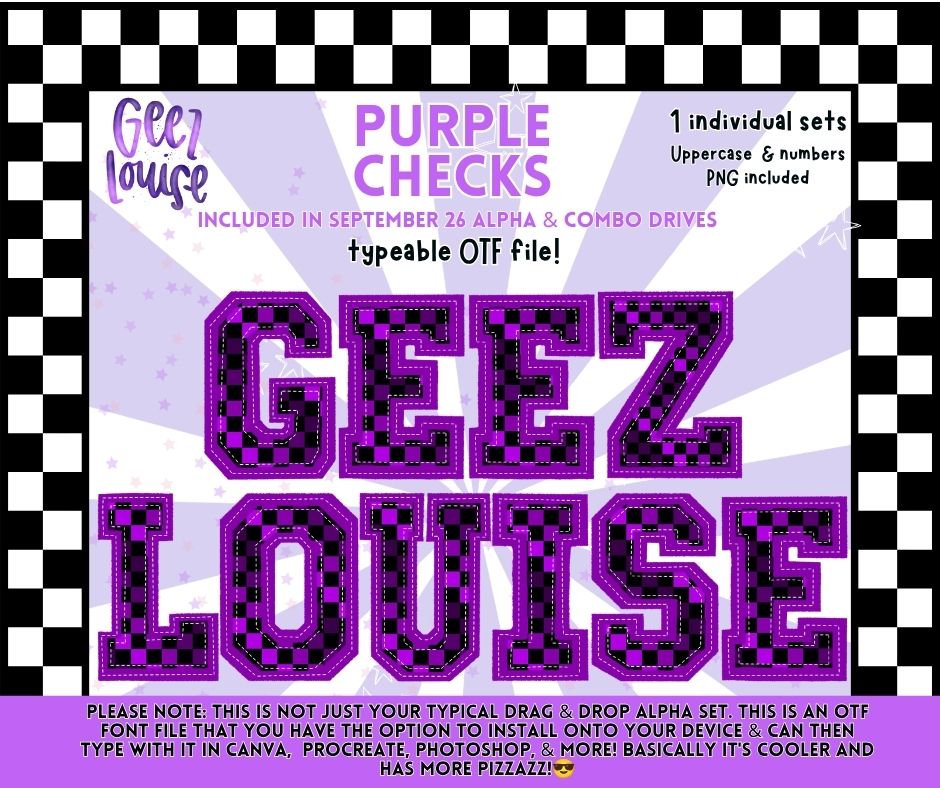
Purple Checks OTF Alpha | Purple & Black Checkered Varsity Font | Uppercase Letters & Numbers
Purple + black + checks = YES PLEASE. 💜🖤🏁
Purple Checks is a bold varsity-style alpha with a purple and black checkered fill, layered purple detailing, and stitched-style accents. Even better, this one is a typeable OTF font, so you can install it directly onto your device and TYPE with it instead of dragging and dropping every individual letter. 🙌
✨ Perfect for team designs, school spirit, sports graphics, shirts, sublimation projects & more